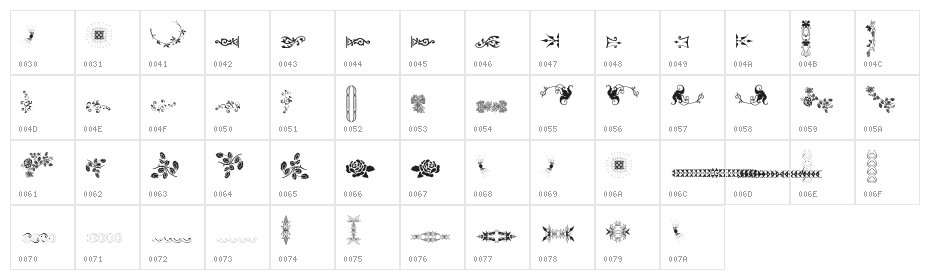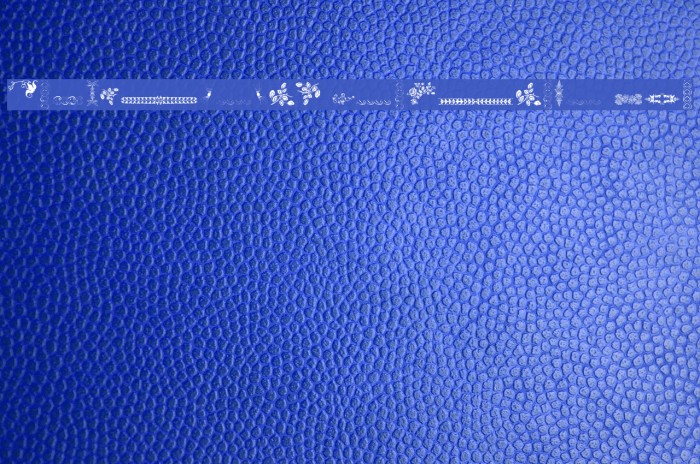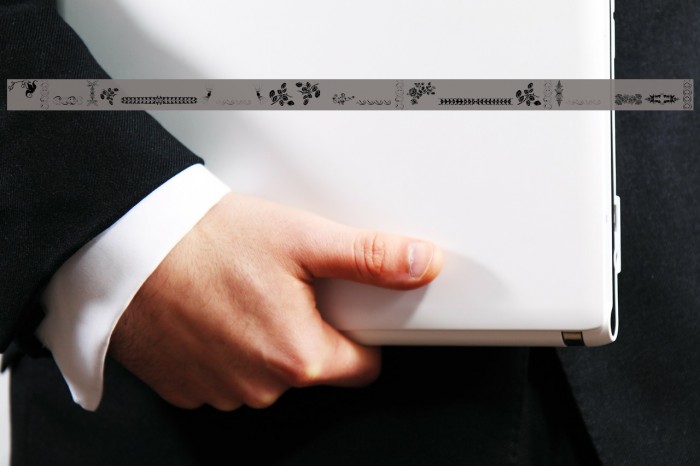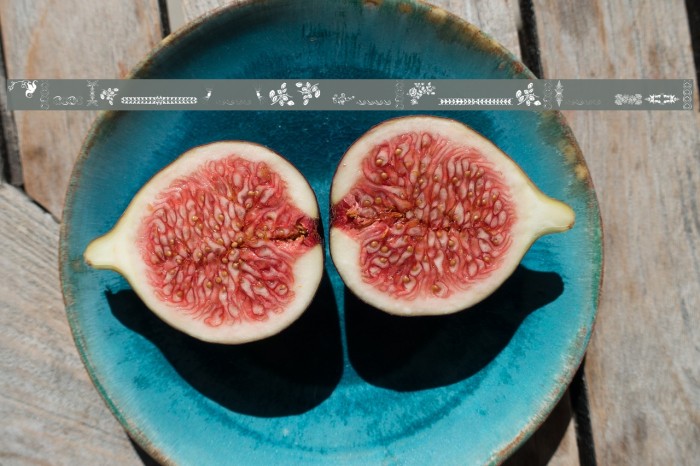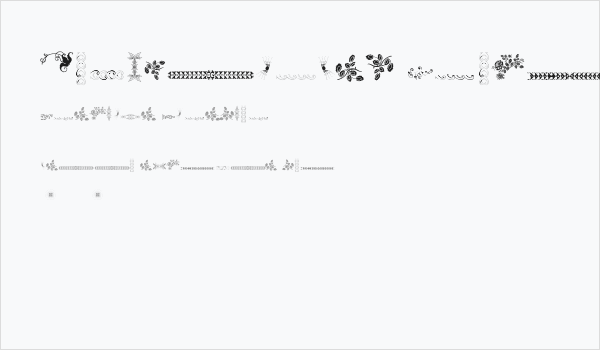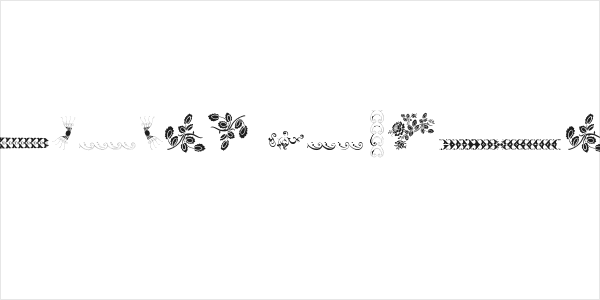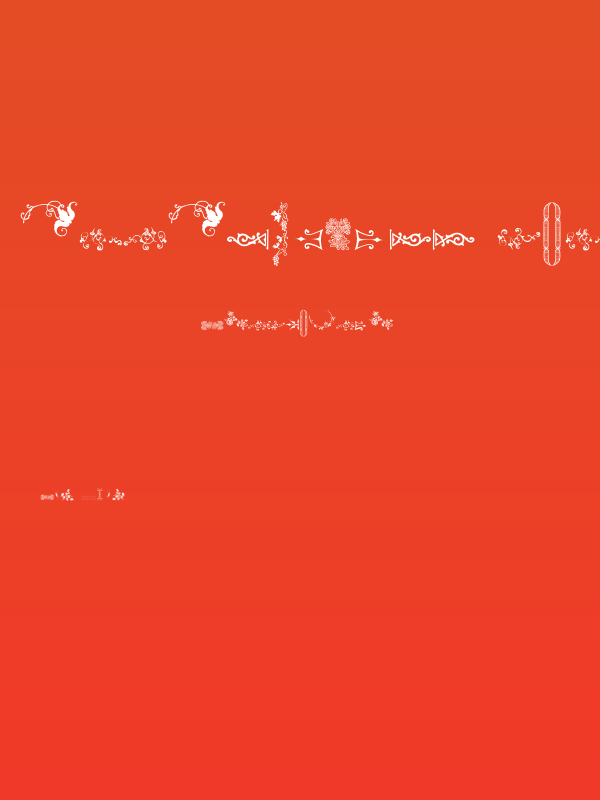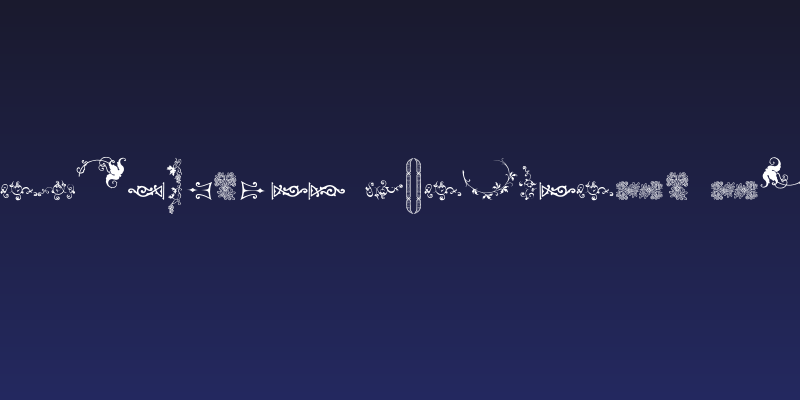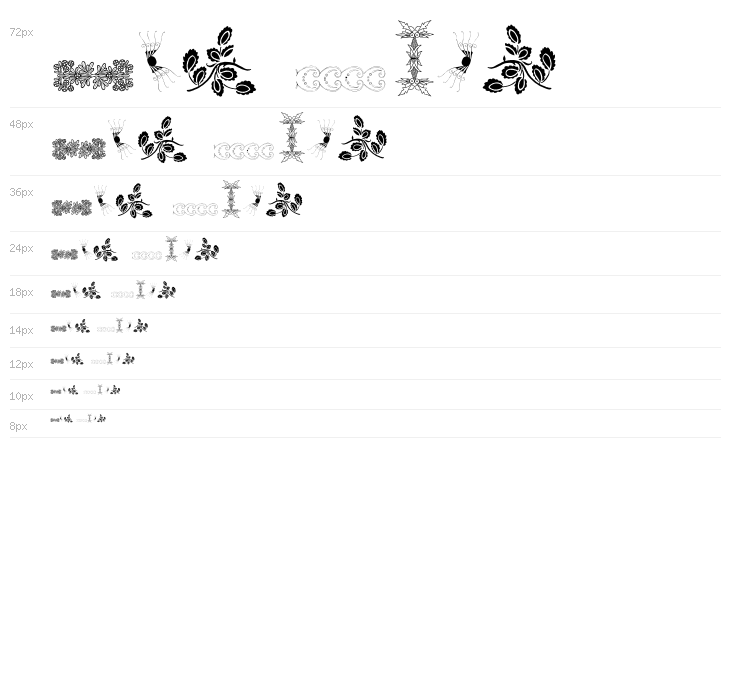
Unpublished Ornaments Two Font
Unpublished Ornaments Two Description
A collection of intricate ornamental and decorative glyphs featuring floral motifs, symmetrical flourishes, and abstract embellishments. The designs are highly detailed, with a mix of organic curves and geometric elements, suitable for use as borders, dividers, or accent graphics.
| Overall Style | Vintage, Decorative |
| Use Case | Borders, Dividers, Decorative accents |
| Proposed Projects | Wedding invitations, vintage certificates, book covers, decorative borders, graphic design accents. |